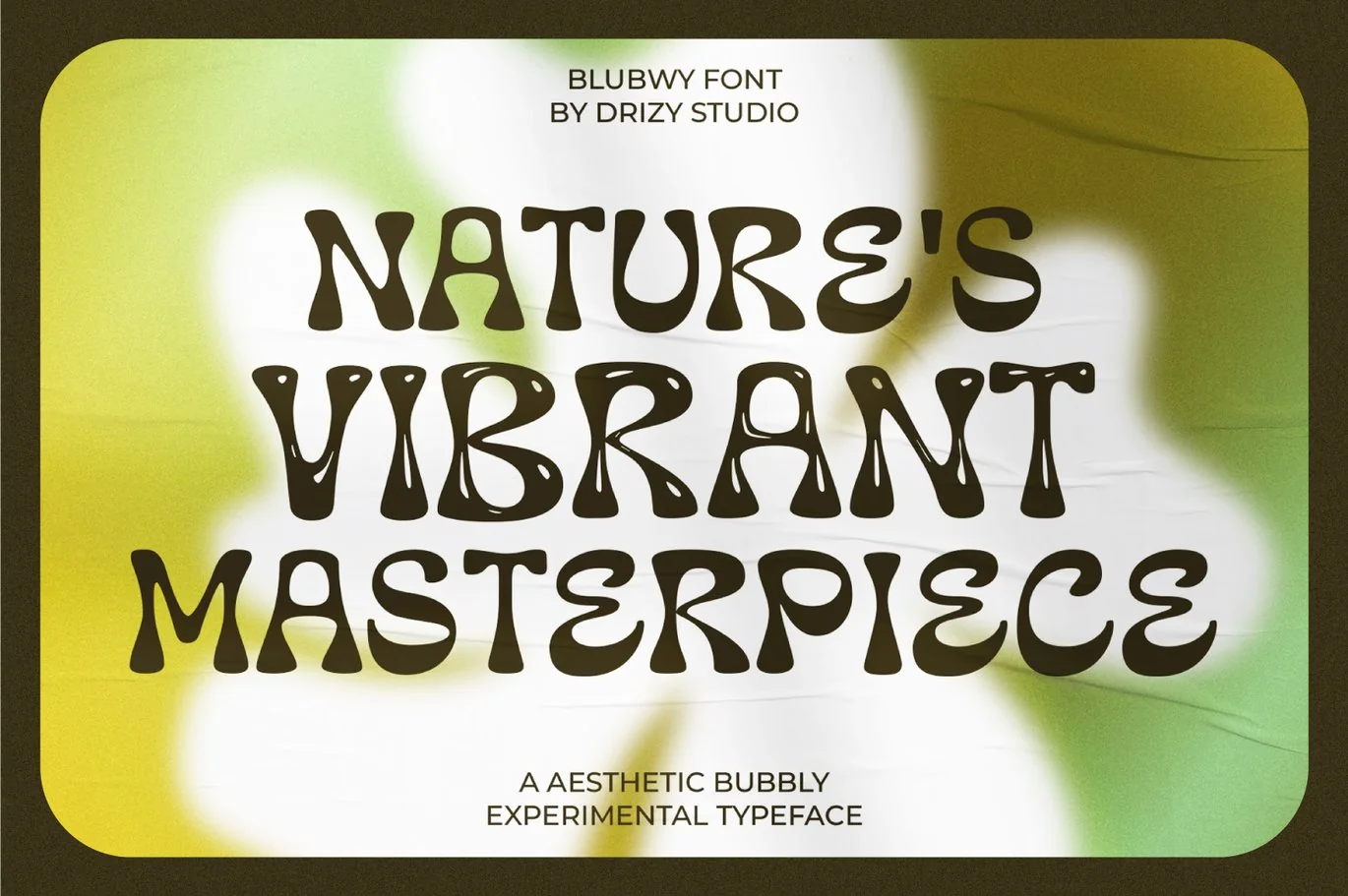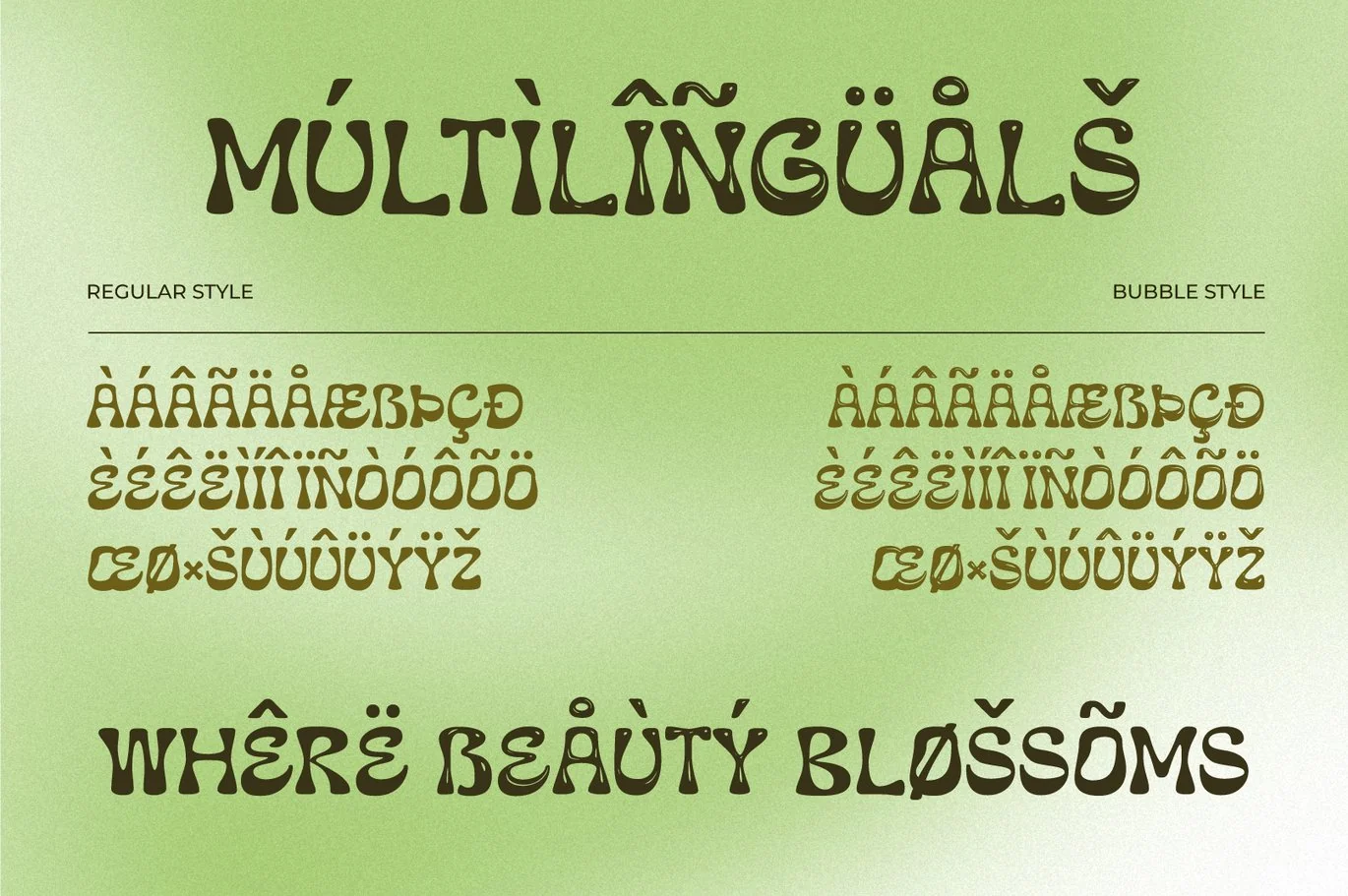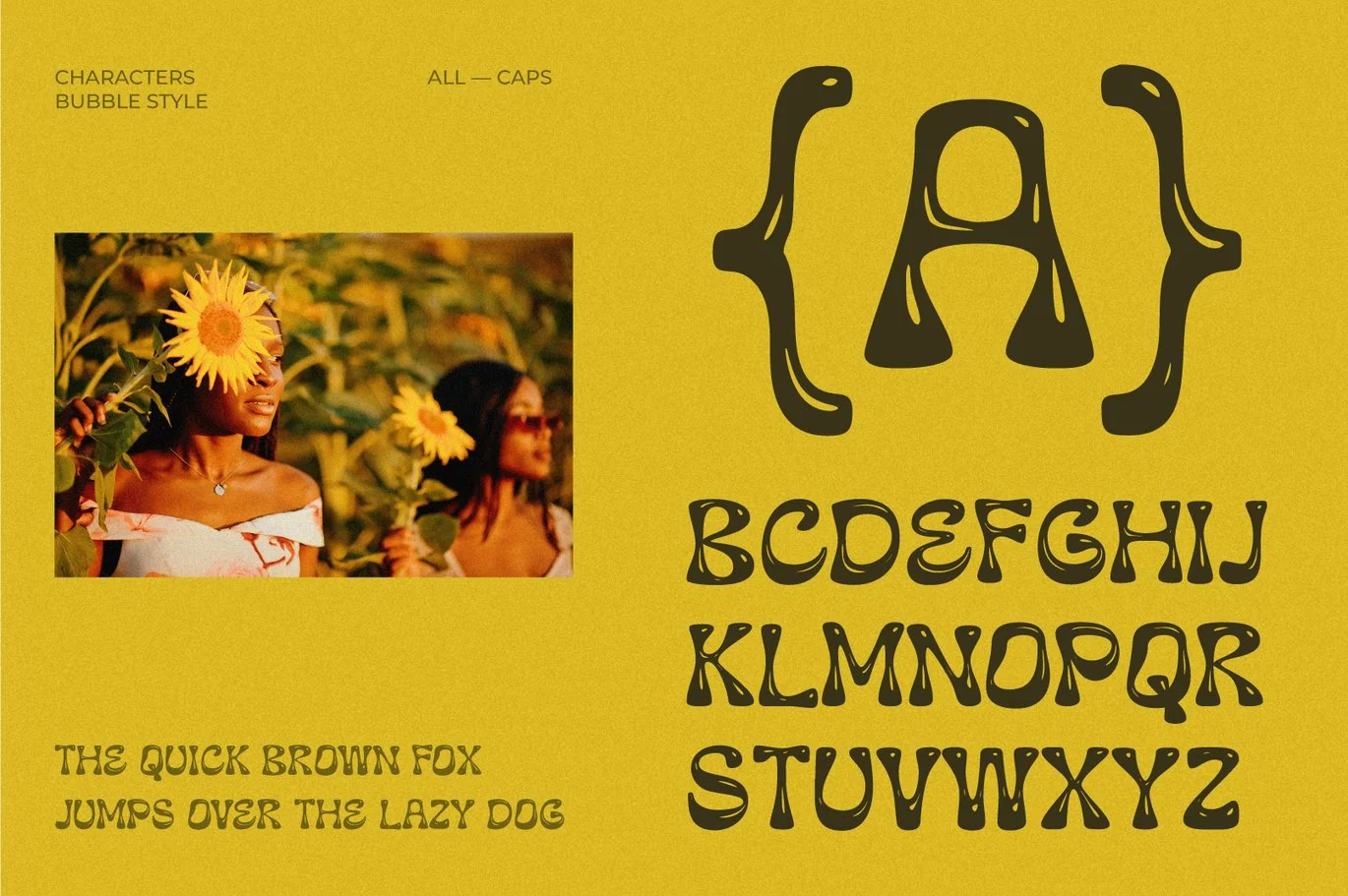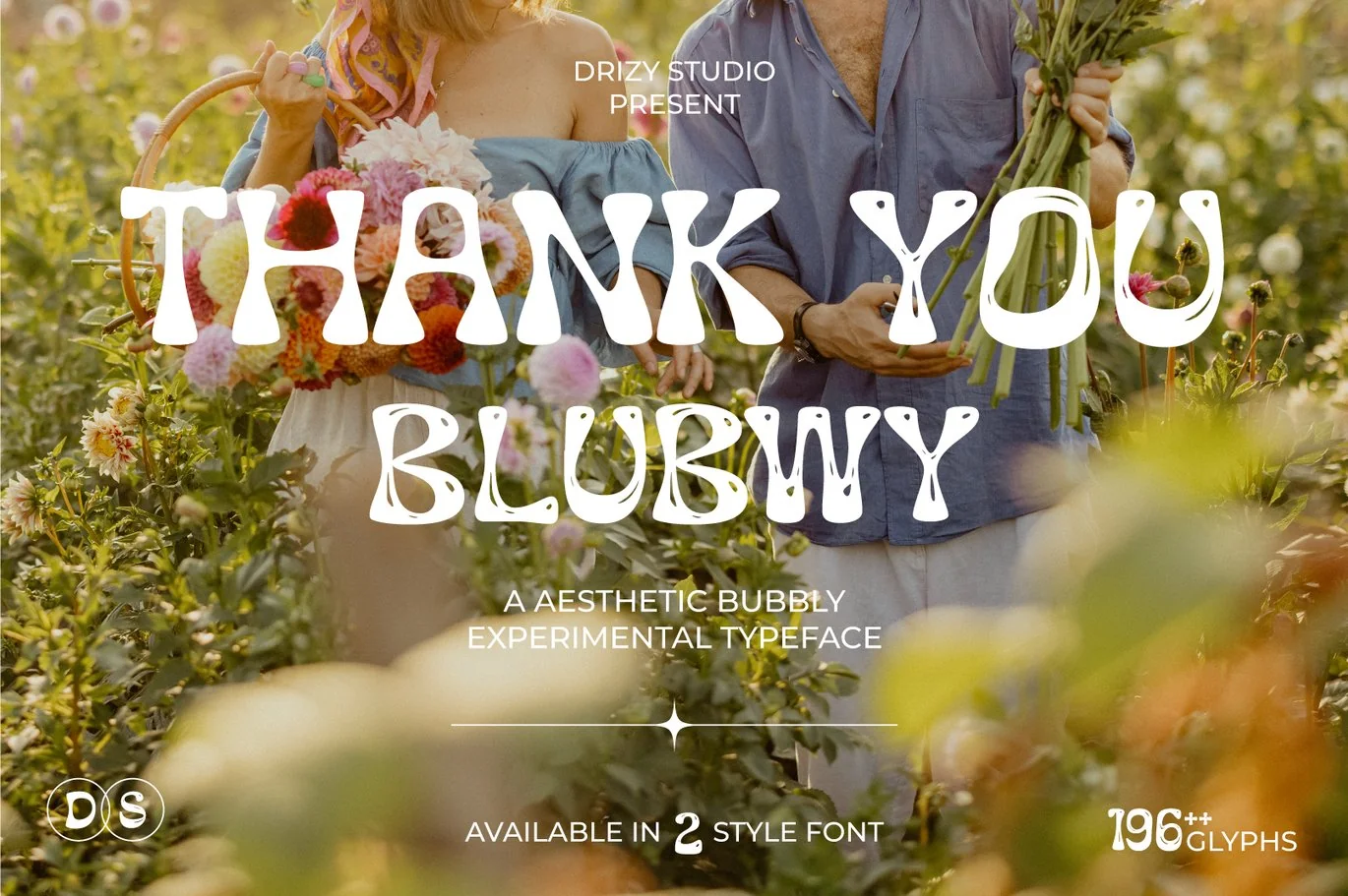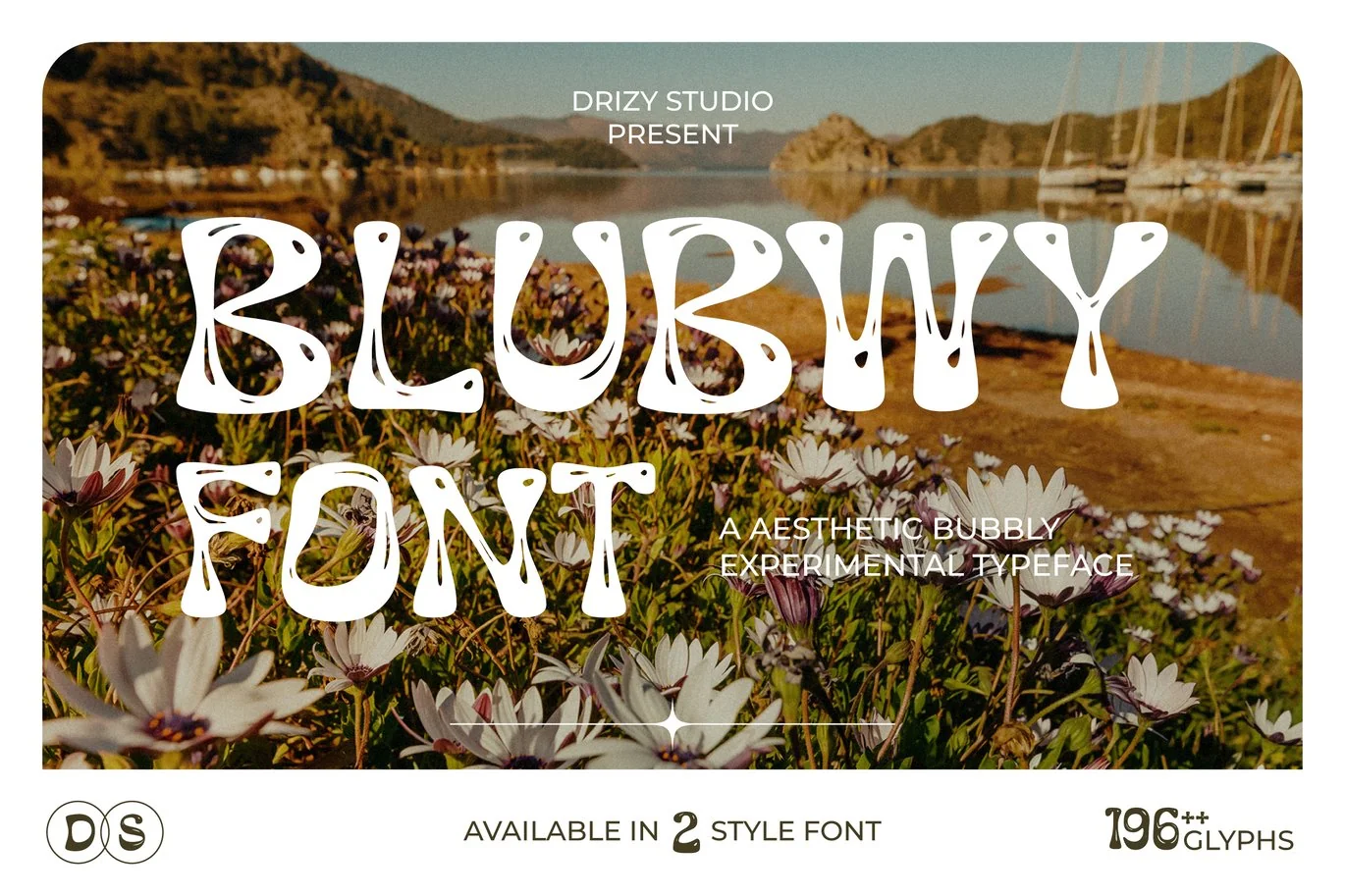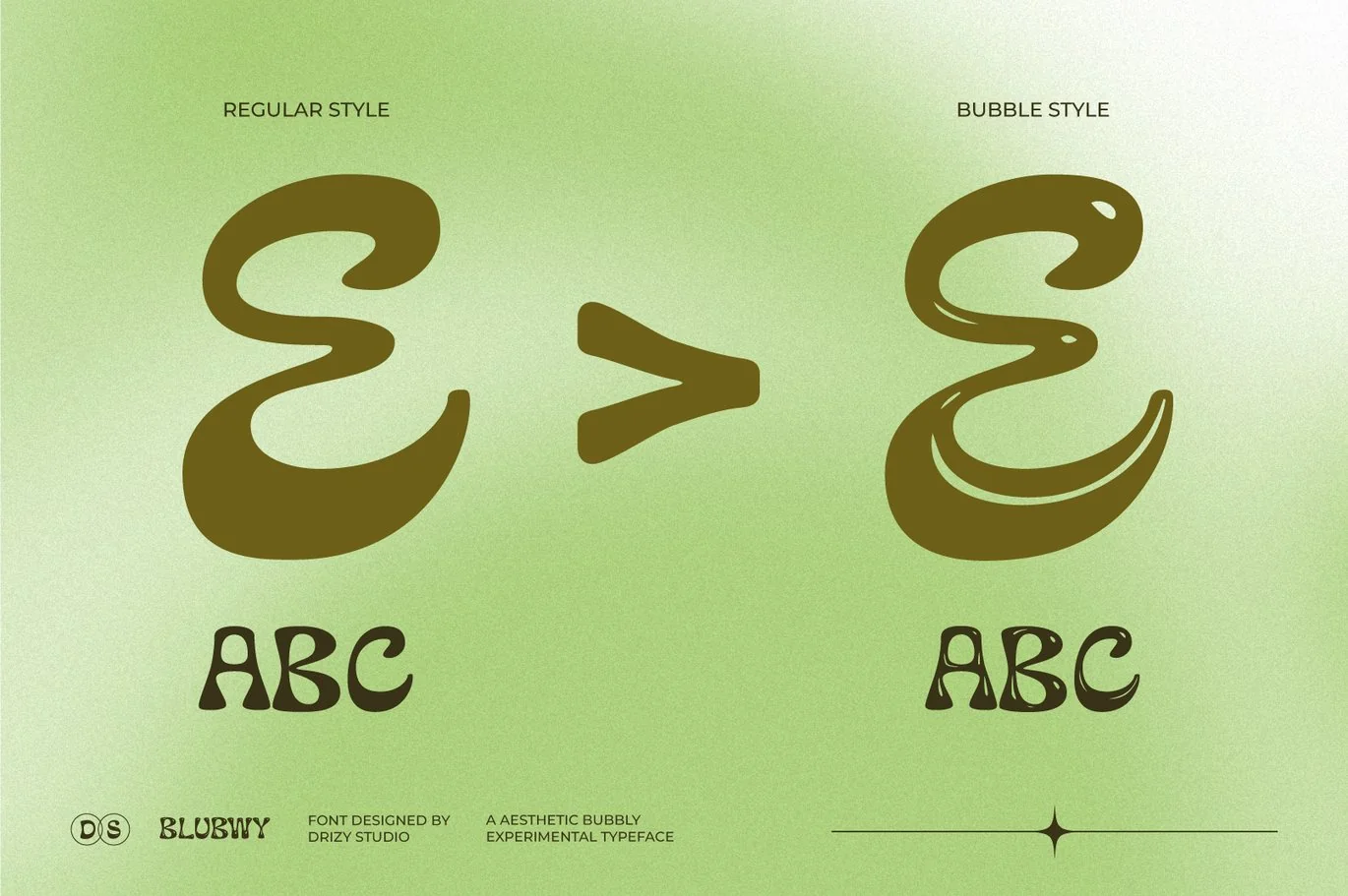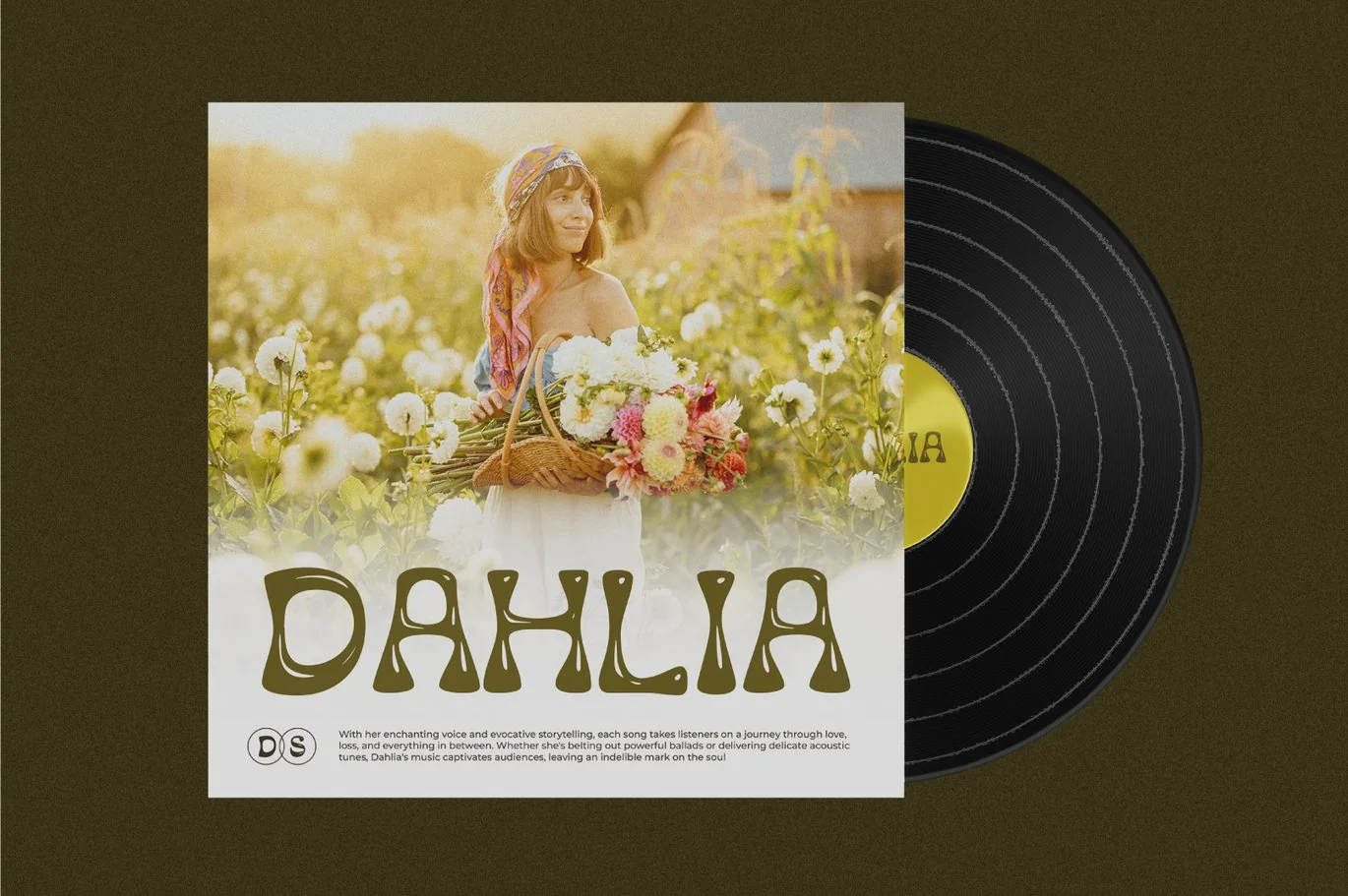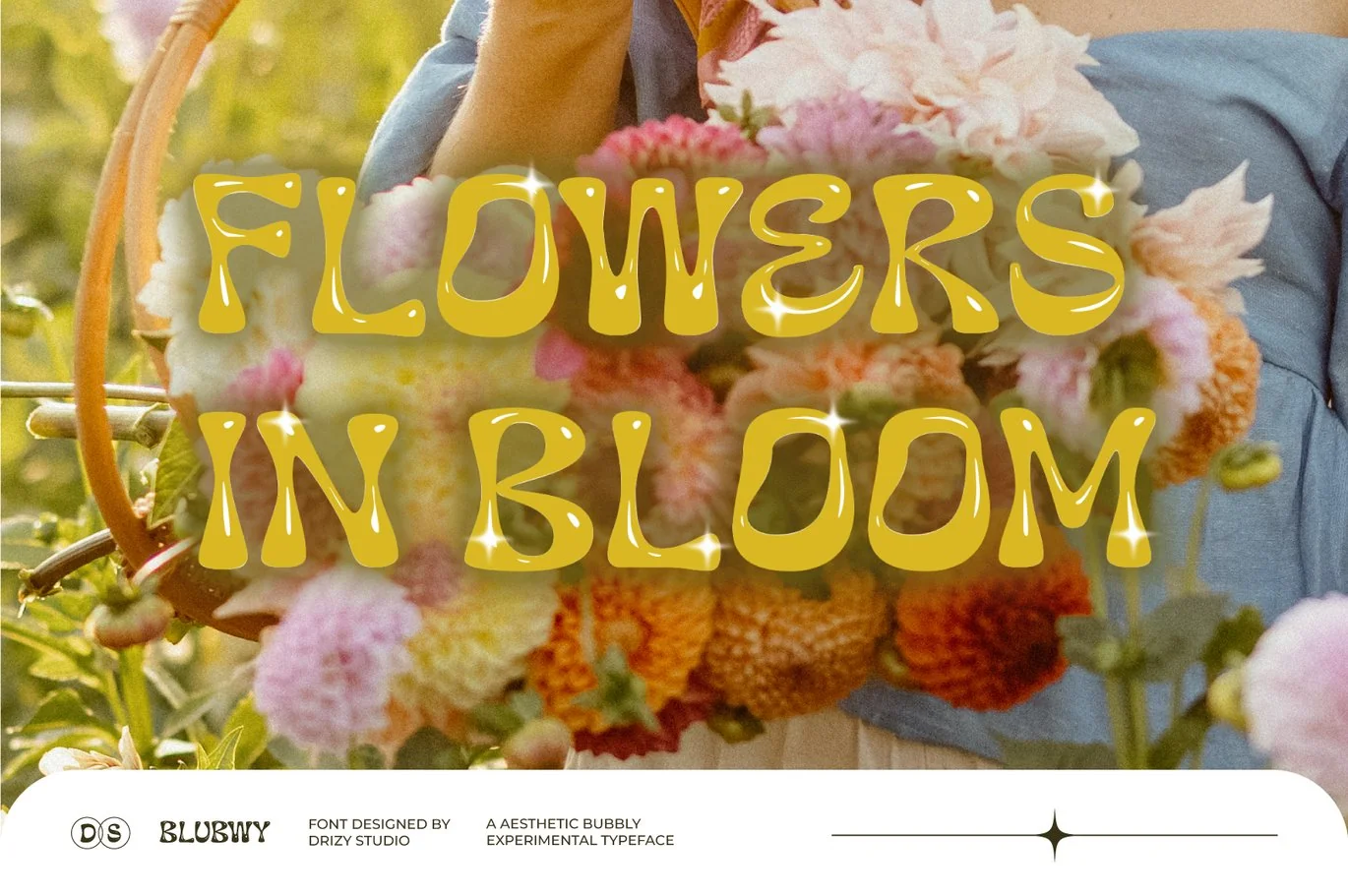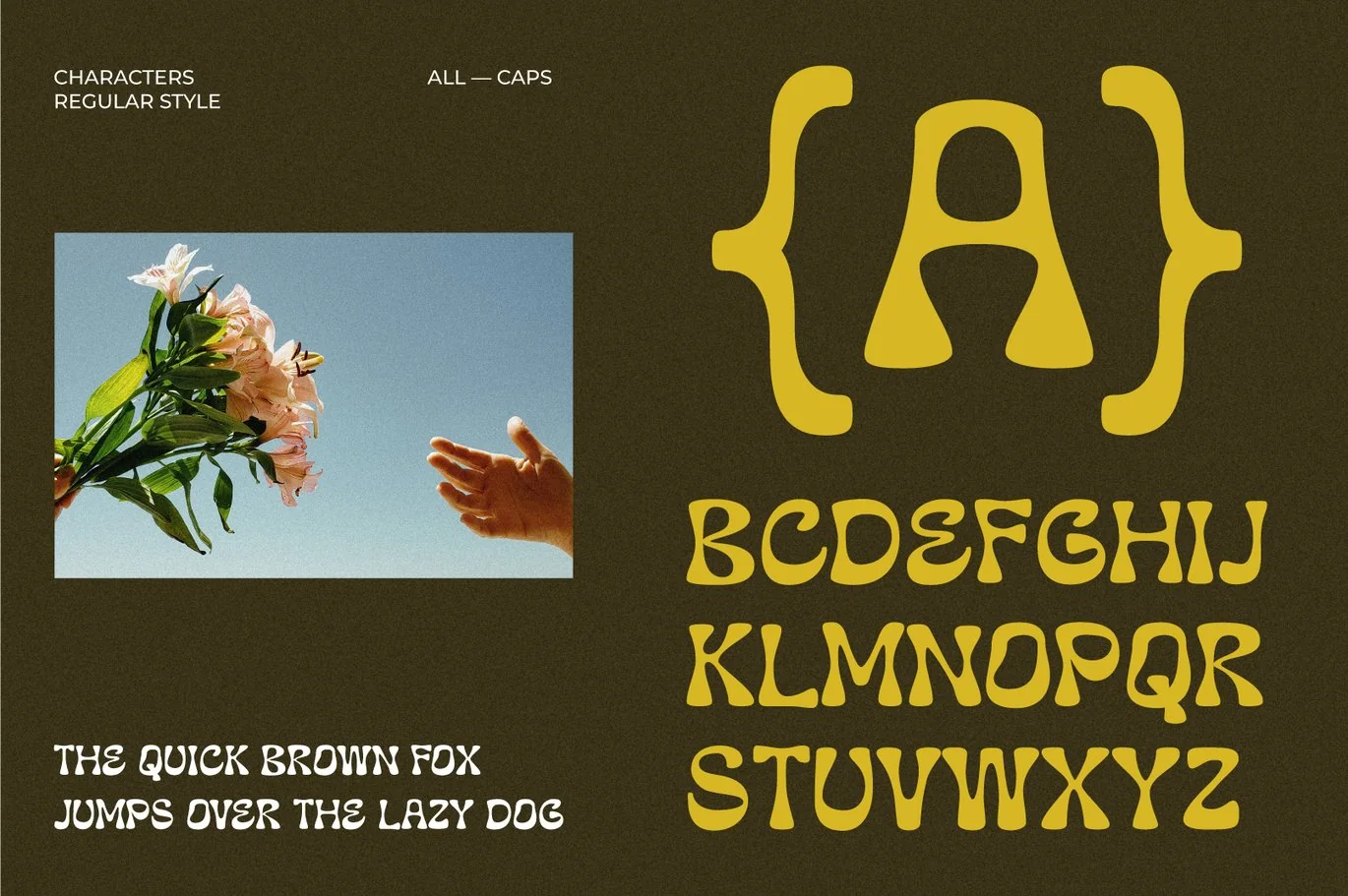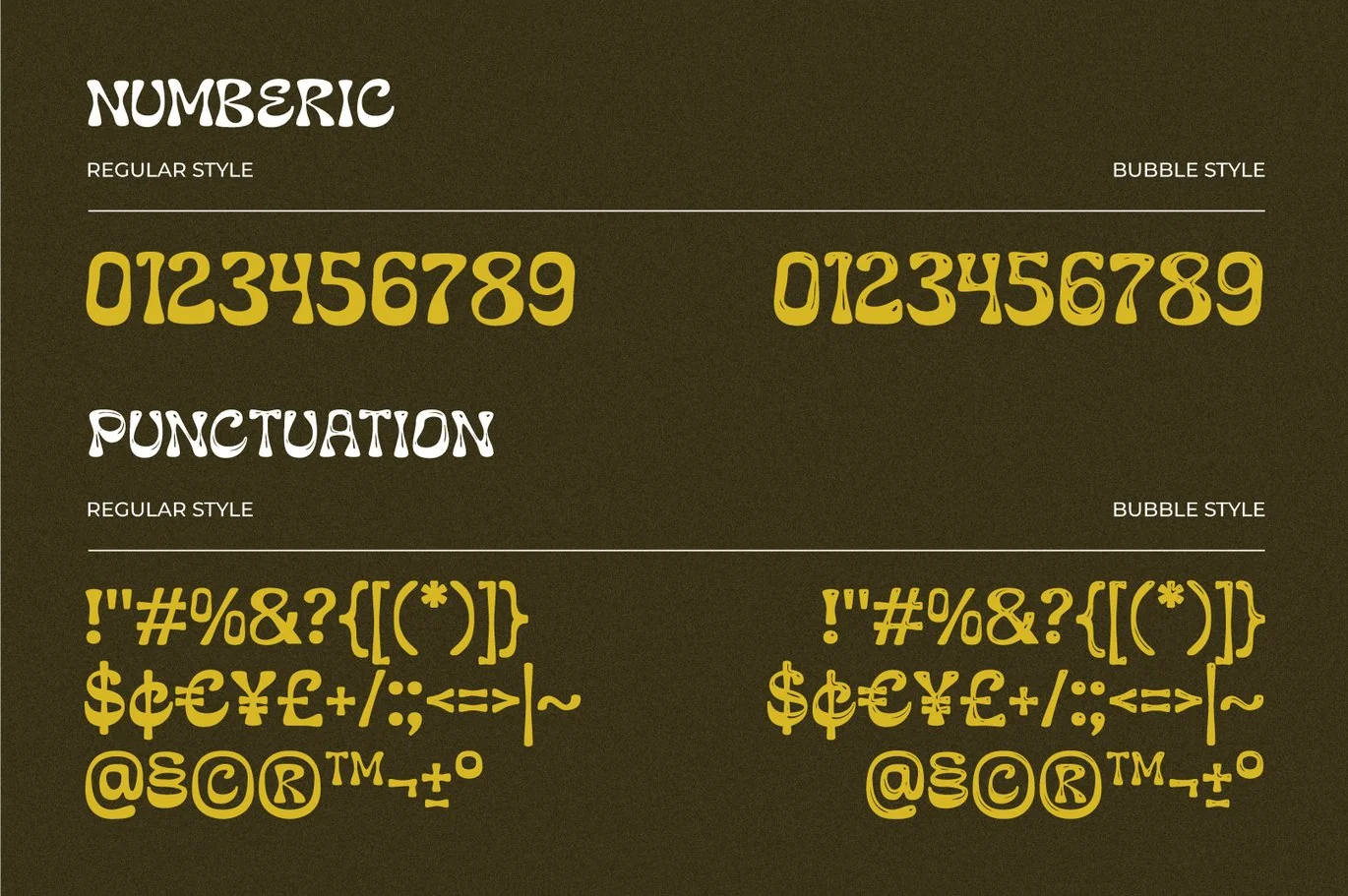
Blubwy – Aesthetic Bubbly Experimental Font
Introducing Blubwy, a captivating and experimental font that effortlessly merges dreamy aesthetics with a playful bubbly charm. This unique typeface is designed to add a touch of whimsy and creativity to your projects, making it perfect for a wide range of applications, from graphic design to branding and beyond.
Blubwy features:
Character Set
Variable: Regular & Bubble Style